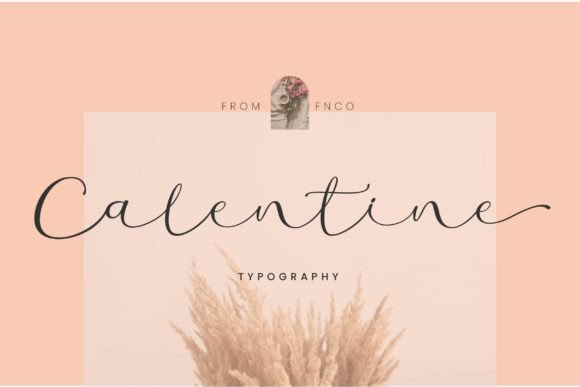
Introducing Calentine Font: Elevate Your Designs with Elegance
Are you on the hunt for a font that exudes style, sophistication, and a touch of delicacy? Look no further than Calentine Font, a beautiful script font that is sure to take your designs to the next level. With its clean, thin, and smooth vibe, Calentine is the perfect addition to any project that requires a dash of elegance and refinement.
What is Calentine Font?
Calentine Font is a stylish and delicate script font that is designed to add a touch of sophistication to any design. Its clean and thin lines give it a smooth, fluid feel that is perfect for a wide range of applications, from branding and packaging to wedding invitations and digital marketing materials.
Key Features of Calentine Font
- Clean and Thin Lines: Calentine Font features clean and thin lines that give it a smooth, fluid feel.
- Delicate and Elegant: The font’s delicate and elegant design makes it perfect for designs that require a touch of sophistication.
- Versatile: Calentine Font is versatile and can be used for a wide range of applications, from print to digital.
- Easy to Read: Despite its delicate design, Calentine Font is easy to read, making it perfect for body text and headlines.
Uses of Calentine Font
Calentine Font is a versatile font that can be used for a wide range of applications, including:
- Branding and Packaging: Use Calentine Font to add a touch of elegance to your brand’s packaging and marketing materials.
- Wedding Invitations: Calentine Font is perfect for wedding invitations, save-the-date cards, and other wedding-related stationery.
- Digital Marketing: Use Calentine Font to add a touch of sophistication to your digital marketing materials, including social media graphics and email newsletters.
- Signage and Displays: Calentine Font is perfect for signage and displays that require a touch of elegance and refinement.
Why Choose Calentine Font?
There are many reasons why Calentine Font is a great choice for designers and crafters, including:
- Unique and Eye-Catching: Calentine Font is a unique and eye-catching font that is sure to grab attention.
- High-Quality: Calentine Font is a high-quality font that is designed to produce crisp, clear results.
Tips for Using Calentine Font
Here are a few tips for using Calentine Font in your designs:
- Use it Sparingly: Calentine Font is a delicate font, so use it sparingly to avoid overwhelming your design.
- Pair it with Bold Fonts: Pair Calentine Font with bold fonts to create a striking contrast.
- Pay Attention to Kerning: Pay attention to kerning to ensure that your text looks smooth and even.
In conclusion, Calentine Font is a beautiful and elegant script font that is sure to elevate your designs to the next level. With its clean, thin, and smooth vibe, Calentine Font is perfect for a wide range of applications, from branding and packaging to wedding invitations and digital marketing materials. Whether you’re a designer or crafter, Calentine Font is a great choice for anyone looking to add a touch of sophistication and refinement to their designs.